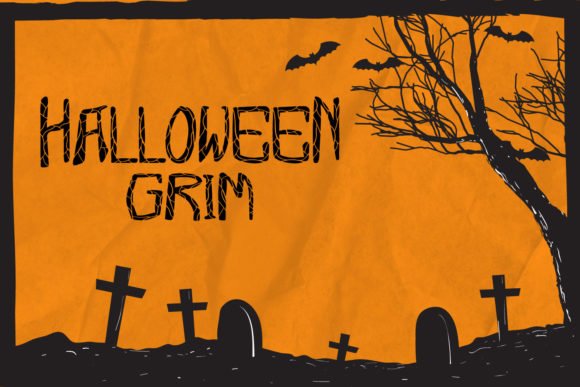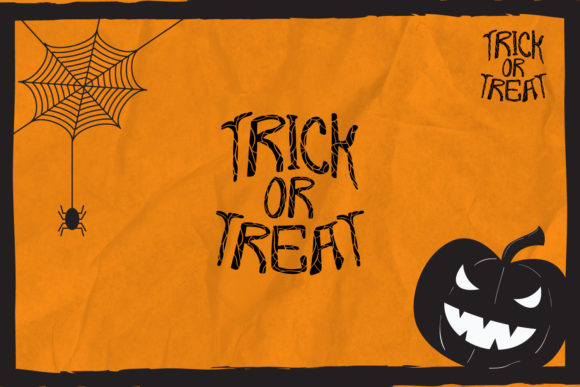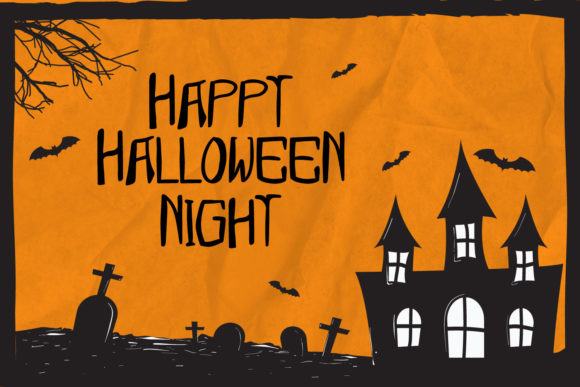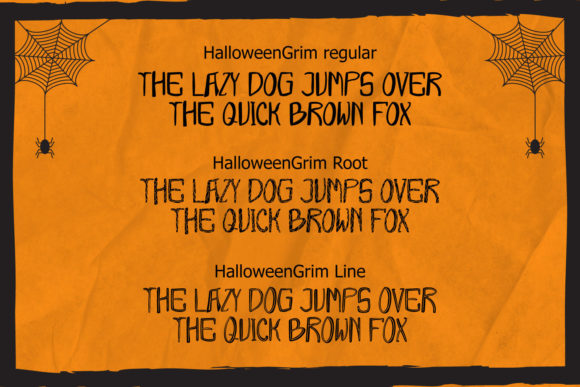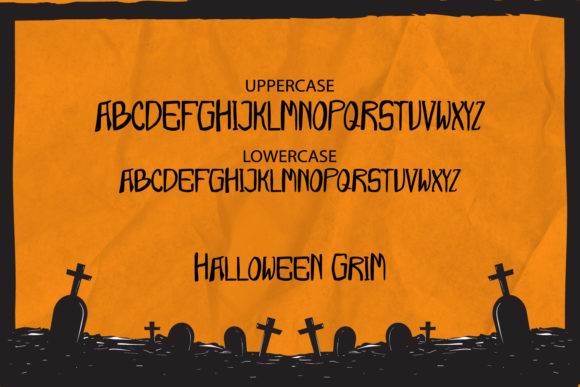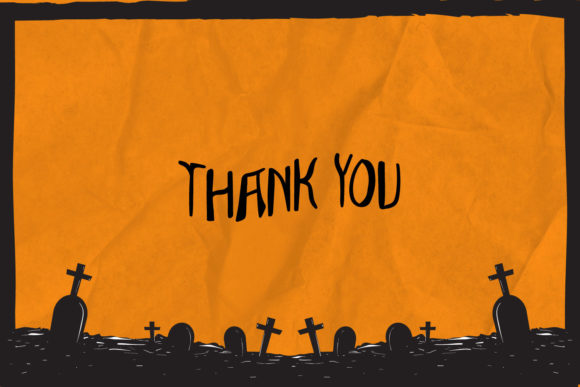
The Perfect Font for a Spooky Season: Unveiling Halloween Grim Font
It’s that time of the year when creativity flows like blood – yes, we’re talking about Halloween! You’re rummaging through your design stash, trying to come up with the perfect font for your spooky crafts, horror movie posters, or even t-shirts. The right font can make all the difference between a bland design and a masterpiece that sends chills down people’s spines.
Enter Halloween Grim Font – a creepy, thin lettered, and unique display font that’s sure to add a touch of eeriness to your designs. This font is specifically designed to make your Halloween-themed projects stand out, and we’re about to dive into what makes it so valuable for designers.
With Halloween Grim Font, you can unleash your creativity and create designs that are sure to leave a lasting impression. Its versatility and spooky charm make it a must-have for designers who want to add a touch of Halloween magic to their work.
Halloween Grim Font Key Features
- Font Family: Halloween Grim Font
- Unique Characteristics:
- Distressed and spooky design
- Perfect for Halloween-themed projects, horror movies, and dark fantasy
- Can be used for titles, headings, and body text
Halloween Grim Font Review
Halloween Grim Font is a spooky and mysterious font that’s perfect for adding a dark touch to your designs. ✨ Here are some things that work well with this font:
- Its unique and intricate design makes it stand out from other fonts.
- The font’s Gothic and mystical feel is ideal for Halloween-themed designs, but it can also be used for other dark or mystical concepts.
- The font is highly customizable, allowing you to adjust its size, color, and other attributes to fit your design needs.
- ⚠️ The font may not be legible at very small sizes, which can be a problem if you’re using it for text-heavy designs.
- ⚠️ The font’s complexity can make it difficult to pair with other fonts, so you may need to experiment with different combinations to find one that works well.
Overall, I think Halloween Grim Font is a great choice for designers who want to add a touch of darkness and mystery to their designs. While it has some limitations, its unique design and high customizability make it a versatile and effective font. Just be sure to test it thoroughly and experiment with different pairings to get the most out of it.
To get the most out of it, use the font in combination with spooky graphics and colors. Experiment with different font sizes and colors to create a haunted atmosphere.
For the most effective use, combine the font with eerie textures and shadows. Use the font to create a spooky headline or title.
Use the font to create a haunted atmosphere in your presentation or document. Combine the font with spooky images and colors to create a chilling effect.
The Halloween Grim Font is perfect for:
Designing spooky posters and flyers
Creating haunted invitations and greeting cards
Adding a spooky touch to presentations and documents
Designing Halloween-themed social media graphics and ads
Alternative Fonts for a Spooky Design
Creepster
Creepster is a playful, handwritten font that is perfect for creating a fun and spooky atmosphere. It’s ideal for use in titles, headings, and body text when you want to convey a sense of playfulness and whimsy. Compared to Halloween Grim Font, Creepster has a more carefree feel and is better suited for younger audiences.
Gravemind
Gravemind is a distressed, horror-themed font that is perfect for creating a dark and ominous atmosphere. It’s ideal for use in titles, headings, and body text when you want to convey a sense of dread and foreboding. Compared to Halloween Grim Font, Gravemind has a more sinister feel and is better suited for mature audiences.
Zekton
Zekton is a futuristic, sci-fi font that is perfect for creating a sense of otherworldliness and unease. It’s ideal for use in titles, headings, and body text when you want to convey a sense of mystery and suspense. Compared to Halloween Grim Font, Zekton has a more modern feel and is better suited for use in futuristic or cyberpunk designs.
For optimal readability, we recommend using a font size between 12-18 points and a line height of at least 1.2-1.5 times the font size. This will help ensure that the text remains legible, especially when used in titles or headings.
Q: Can I use the Halloween Grim Font in conjunction with other fonts to create a custom font stack?
Yes, the Halloween Grim Font can be used in combination with other fonts to create a custom font stack. When pairing fonts, consider factors such as font style, weight, and x-height to ensure a harmonious and visually appealing typography.